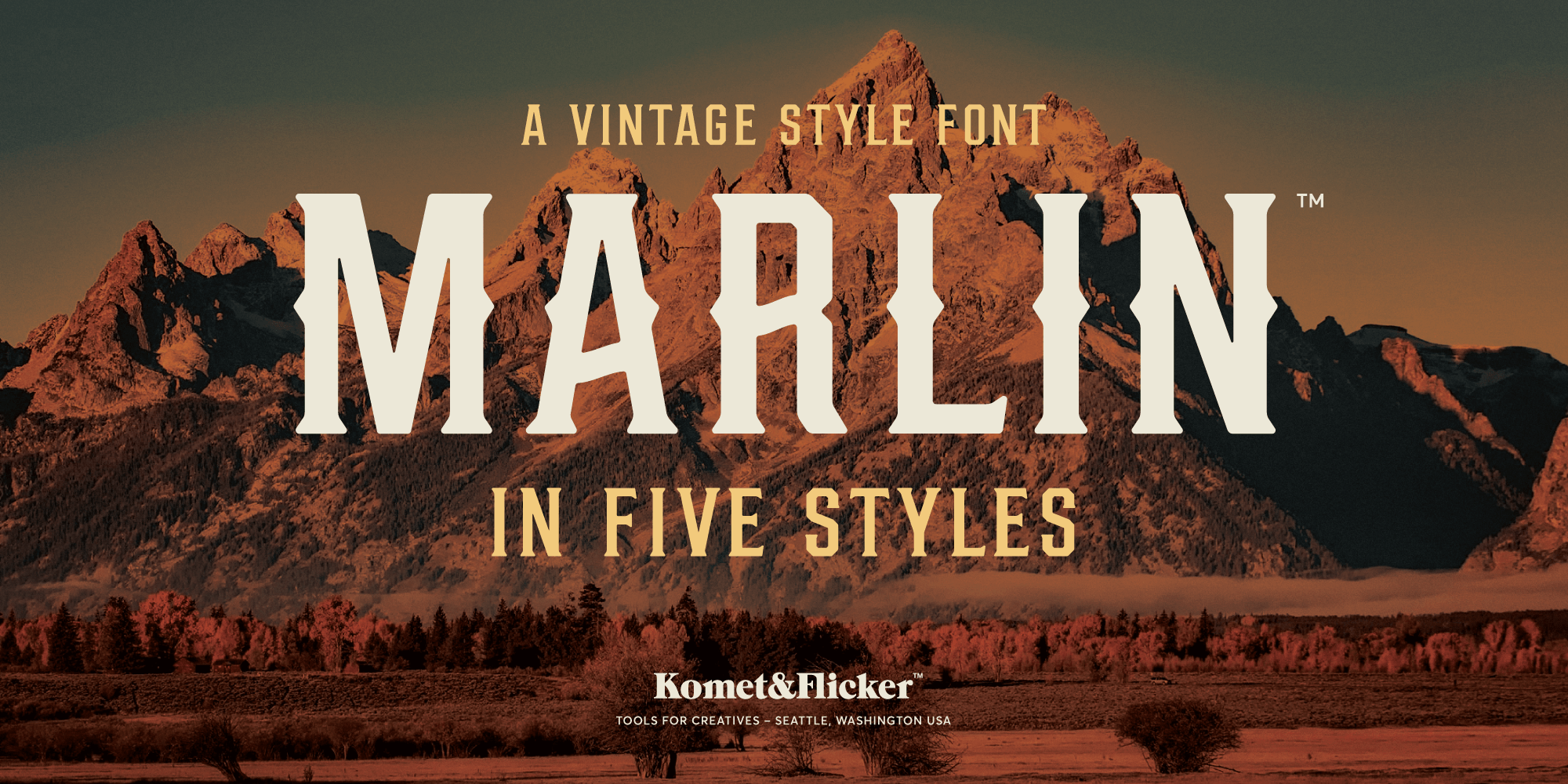
MARLIN Font is perfect for marine branding, fishing industry materials, oceanic signage, seafood restaurant graphics, nautical publications, deep-sea adventure campaigns, marine conservation communications, and aquatic display typography.
What makes MARLIN Font exciting is its streamlined marine character that embodies ocean speed and fishing excellence through dynamic letterforms and aquatic appeal. This powerful typeface features marine construction, fishing details, and oceanic personality that captures the essence of deep-sea fishing and marine adventure, making it ideal for projects seeking to communicate oceanic strength, fishing prowess, and marine authenticity with genuine aquatic appeal and nautical sophistication.
The MARLIN Font family includes Light, Regular, Medium, and Bold weights, each maintaining the characteristic marine power and oceanic appeal that define this distinctive typeface's aquatic personality and fishing sophistication.
MARLIN Font Free Download provides access to a typeface that perfectly captures the essence of marine life and fishing culture. This dynamic font brings authentic oceanic aesthetics to contemporary projects, making it essential for fishing companies, marine organizations, and seafood brands targeting audiences passionate about ocean life and fishing adventures. The font's marine construction and aquatic details ensure immediate recognition of oceanic power while its distinctive character creates deep connections among individuals drawn to marine environments and fishing culture. Whether designing fishing tournament materials, marine conservation campaigns, or seafood brand communications, this font delivers the oceanic authenticity and marine sophistication that fishing enthusiasts expect. Its aquatic foundation and marine symbolism make it indispensable for projects celebrating ocean culture, fishing heritage, and the powerful majesty of marine life, ensuring communications resonate with audiences who value the oceanic strength, fishing tradition, and marine authenticity that define genuine oceanic experiences and fishing culture across diverse marine and aquatic applications.